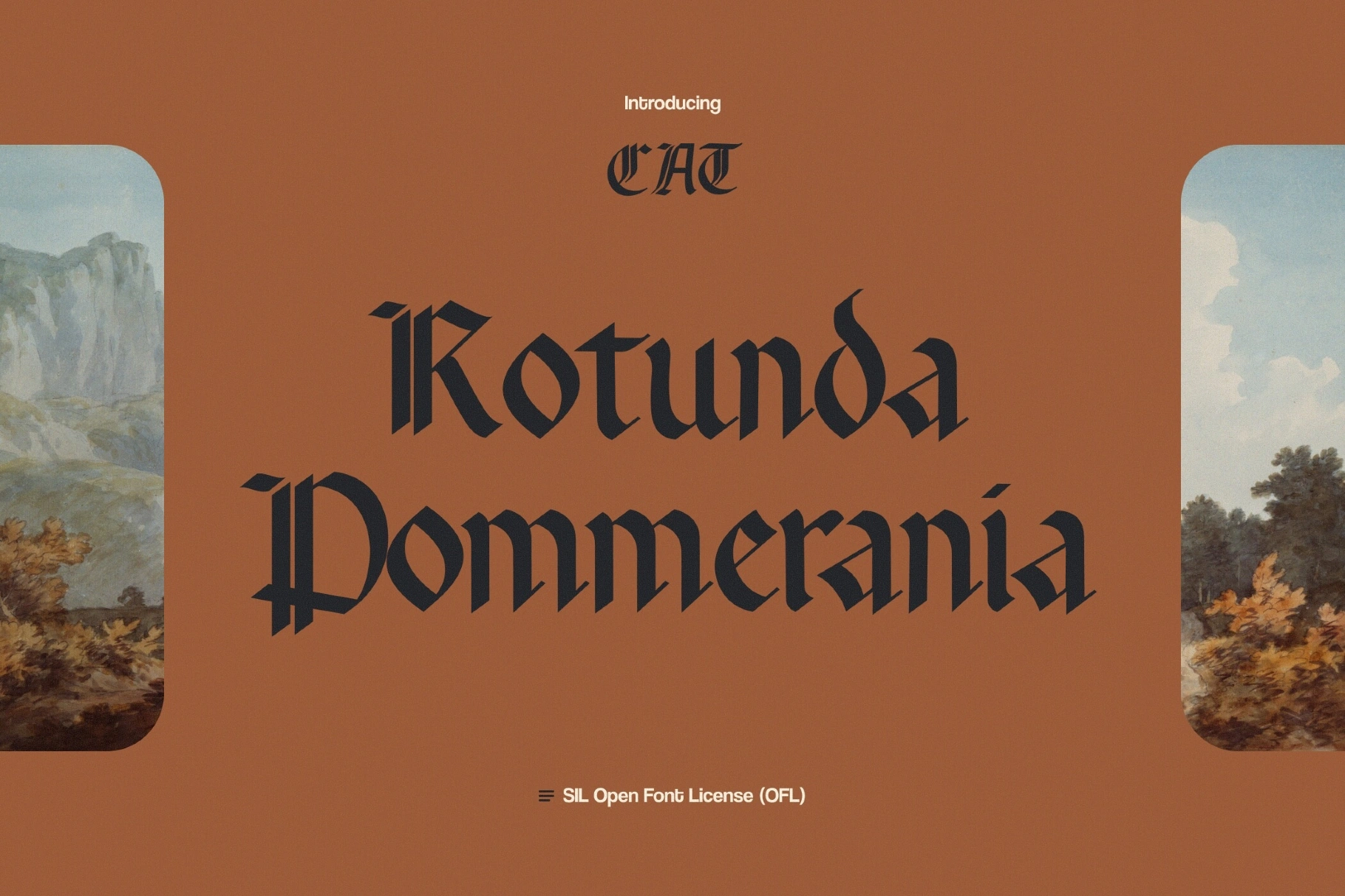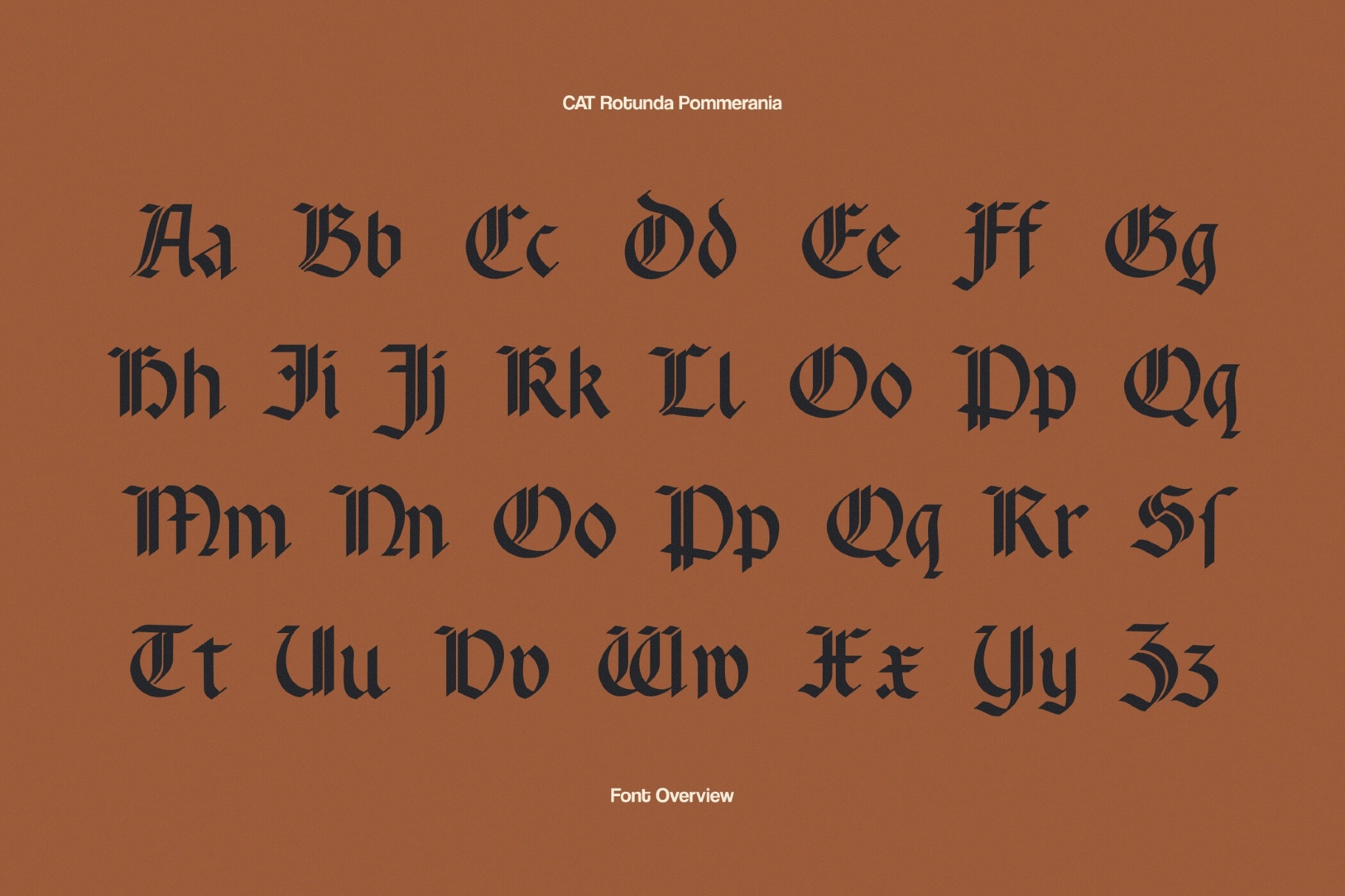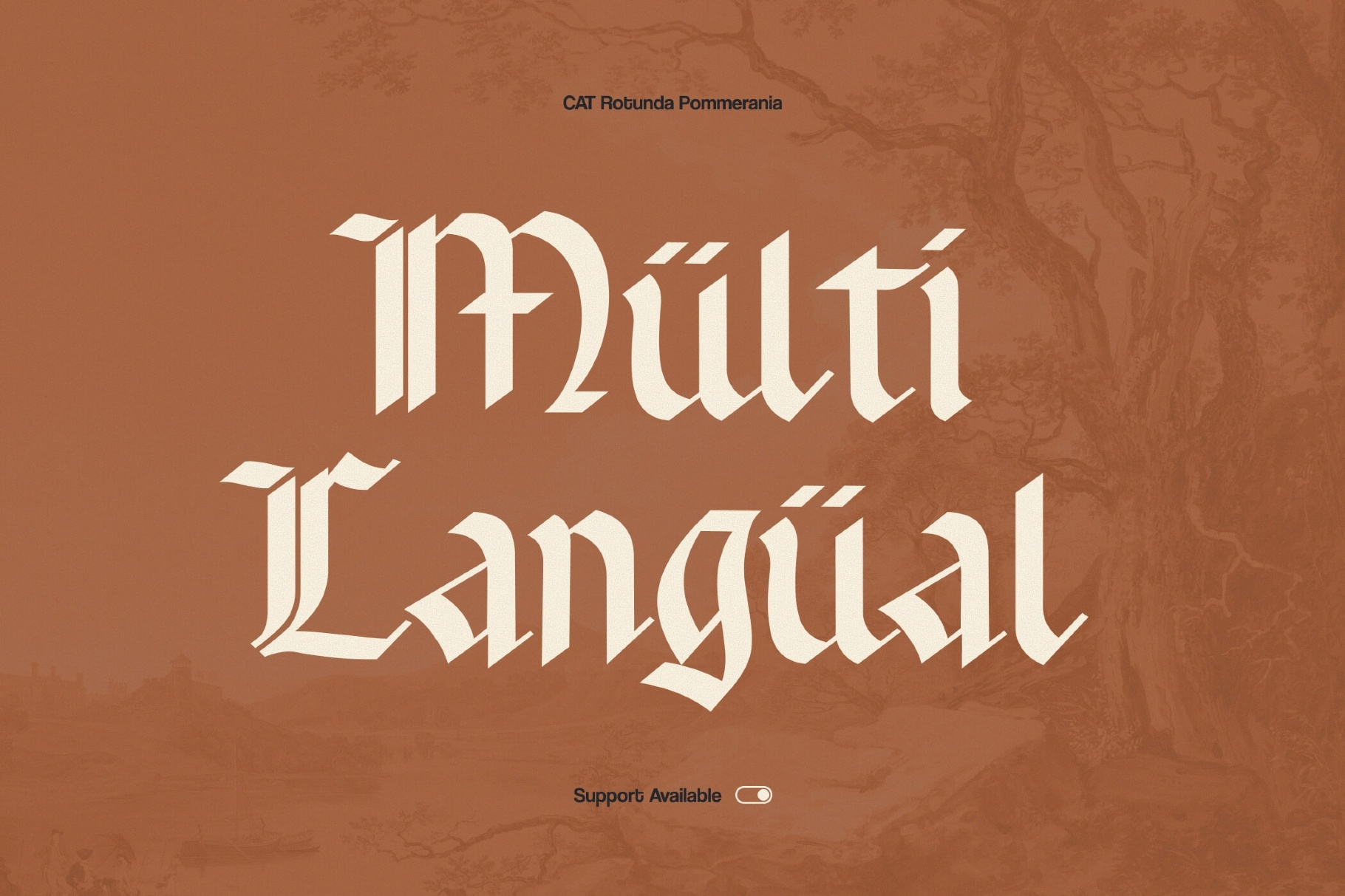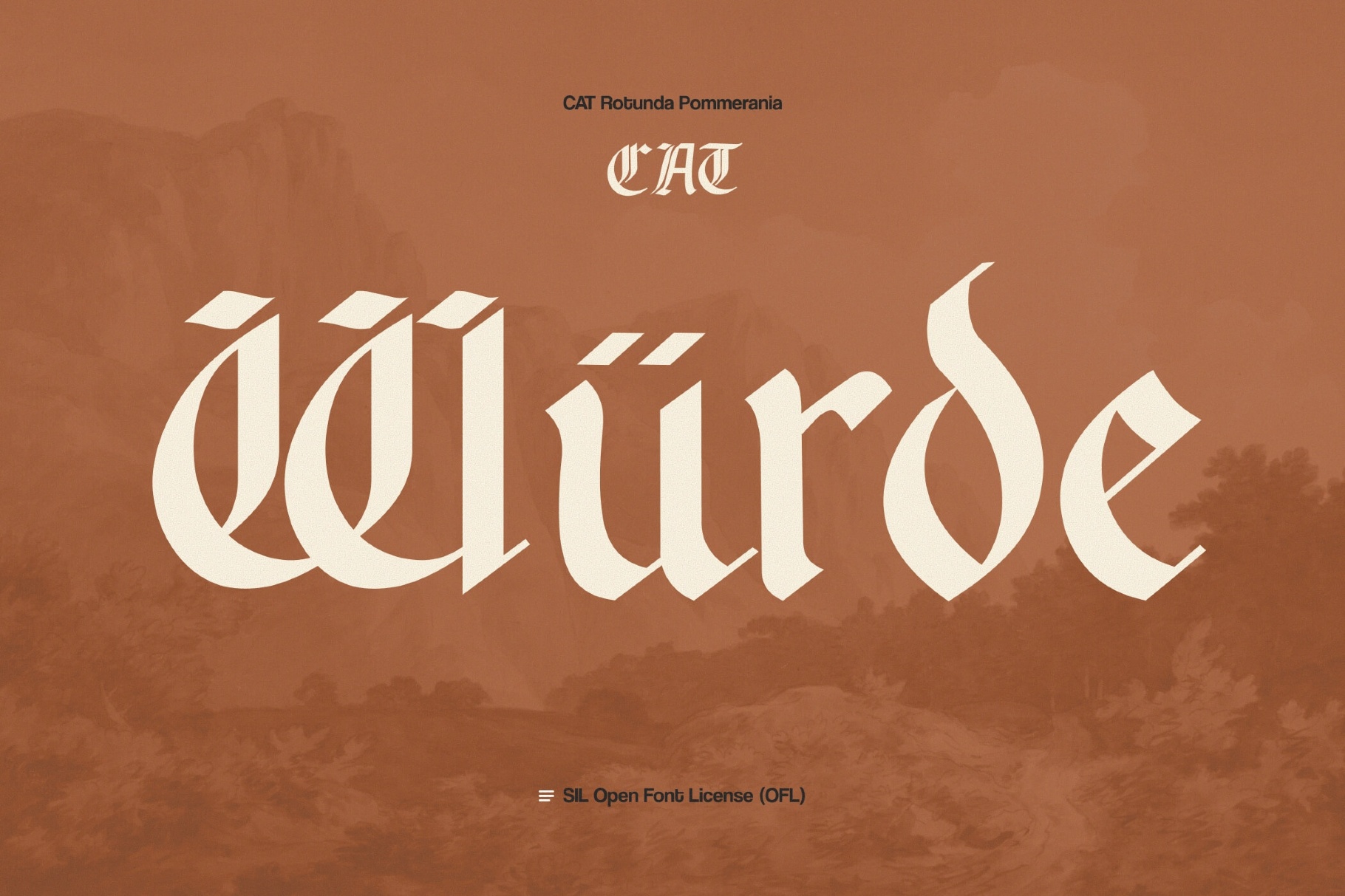
Rotunda Pommerania — Blackletter Font
Rotunda Pommerania carries tall vertical strokes, crisp angles, and smooth curves that carve out a clear silhouette in every word. It's built close to traditional gothic calligraphy, yet the carefully balanced contrast keeps longer phrases readable in print and digital layouts.
You can set titles for metal bands or experimental music projects, lettering for fantasy or historical book covers, and wordmarks for indie games. The font works well on labels for craft beverages or artisan food, bold branding for barbershops or tattoo studios, and statement graphics for streetwear or merch. Designers can also use it for event posters, festival identities, album artwork, and social media visuals that need a dramatic, old-world accent.